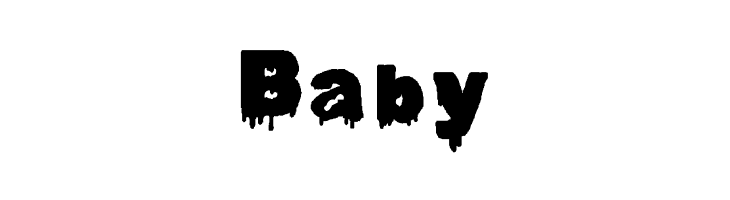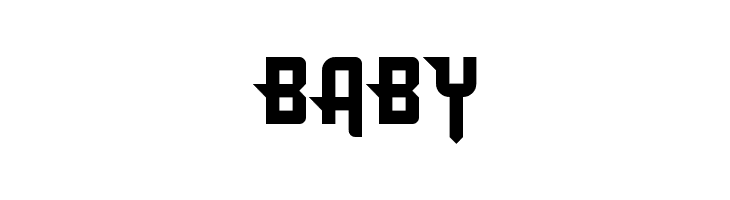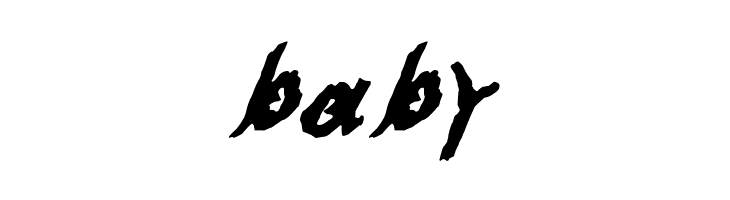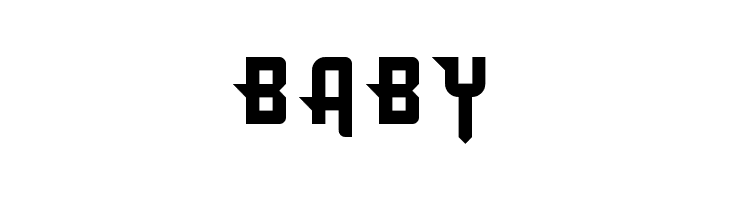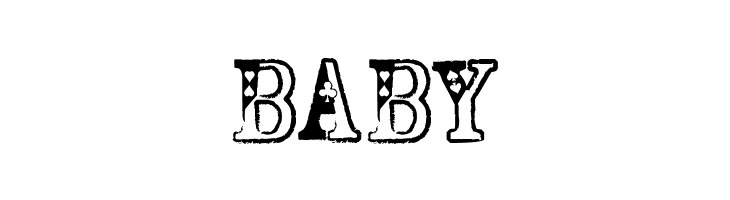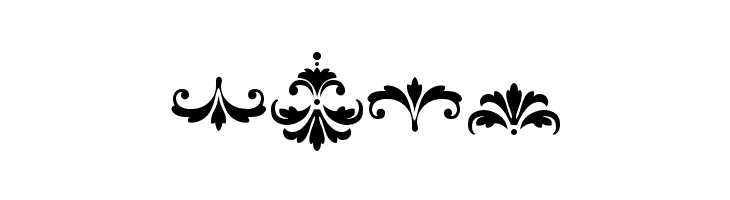
A bold, geometric font with sharp angles and a modern, edgy style.
A bold serif font with high contrast and classic elegance.
A bold, distressed decorative font with a vintage, grunge aesthetic.
A collection of intricate damask-inspired ornamental designs for elegant decoration.
A bold, dripping font ideal for horror themes.
A bold, gothic-inspired font with sharp angles and geometric shapes.